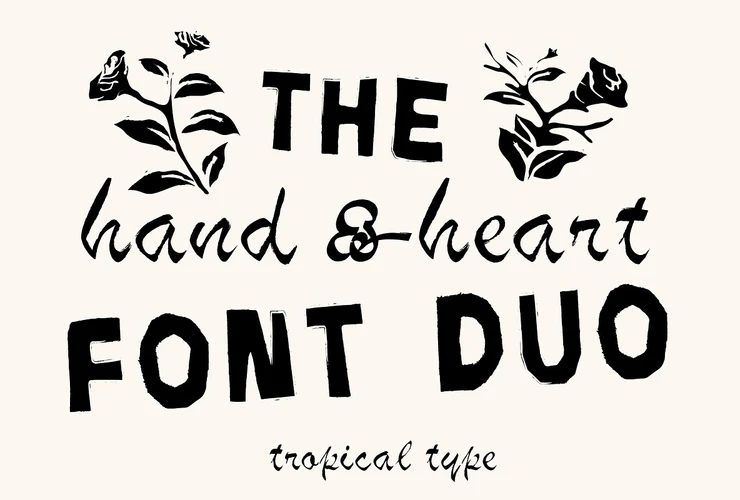
Hand & Heart Font Duo: A Unique Handmade Typeface
Hand & Heart is a distinctive handmade font duo, featuring a combination of cut-out paper style and dry brushed script. This font set is perfect for designers seeking an authentic and organic touch in their projects, offering a refreshing departure from the polished precision of AI-generated fonts. Created with genuine craftsmanship, Hand & Heart brings a personal and heartfelt aesthetic to your designs, making it ideal for logos, branding, social media, and more.
Features of Hand & Heart Font Duo
The Hand & Heart Font Duo includes two unique styles: the Hand And Heart Script and the Hand And Heart Regular. These fonts come in multiple formats, including OTF, TTF, WOFF, WOFF2, and SVG, ensuring compatibility with a wide range of design software and platforms. The font set also includes a comprehensive selection of non-English glyphs, allowing for versatile use across different languages.
Whether you’re creating a logo, branding materials, or social media graphics, this font duo offers a unique blend of handmade charm and versatility. The natural, handcrafted feel of the fonts makes them perfect for projects that require a personal and heartfelt touch. From wedding invitations to art prints, Hand & Heart brings warmth and character to every design.